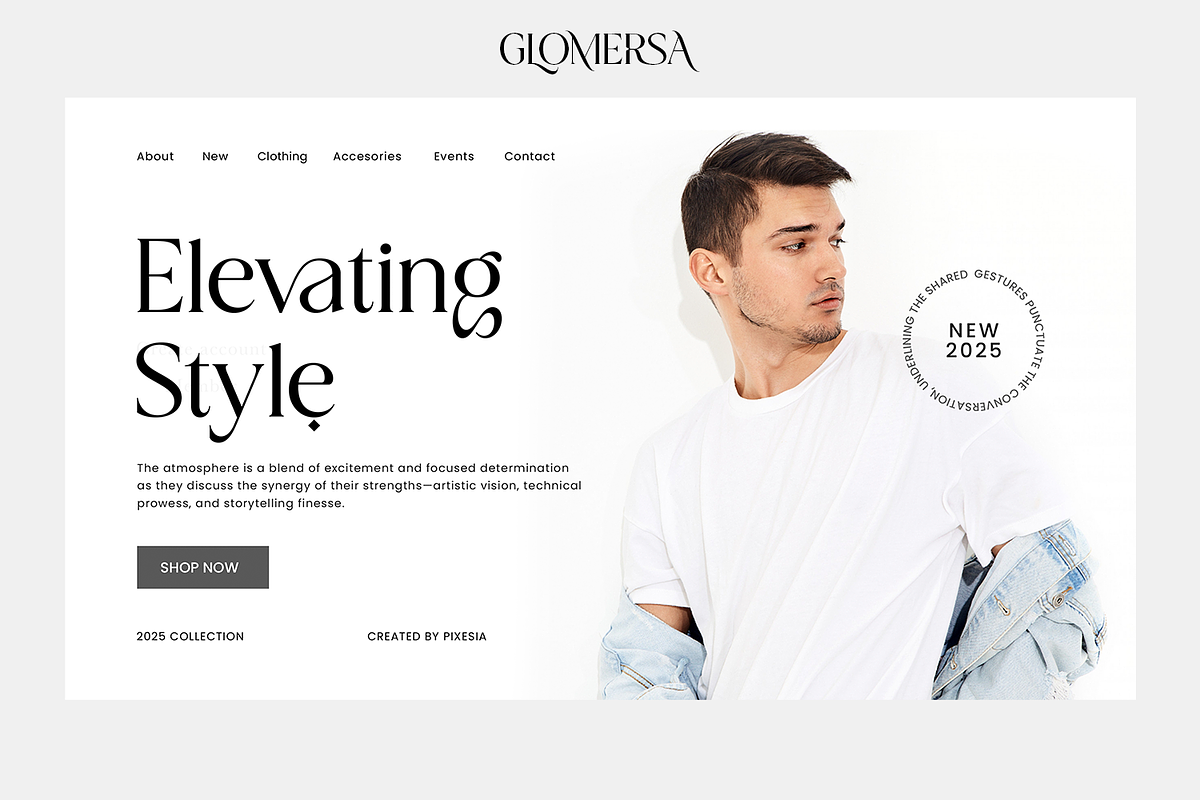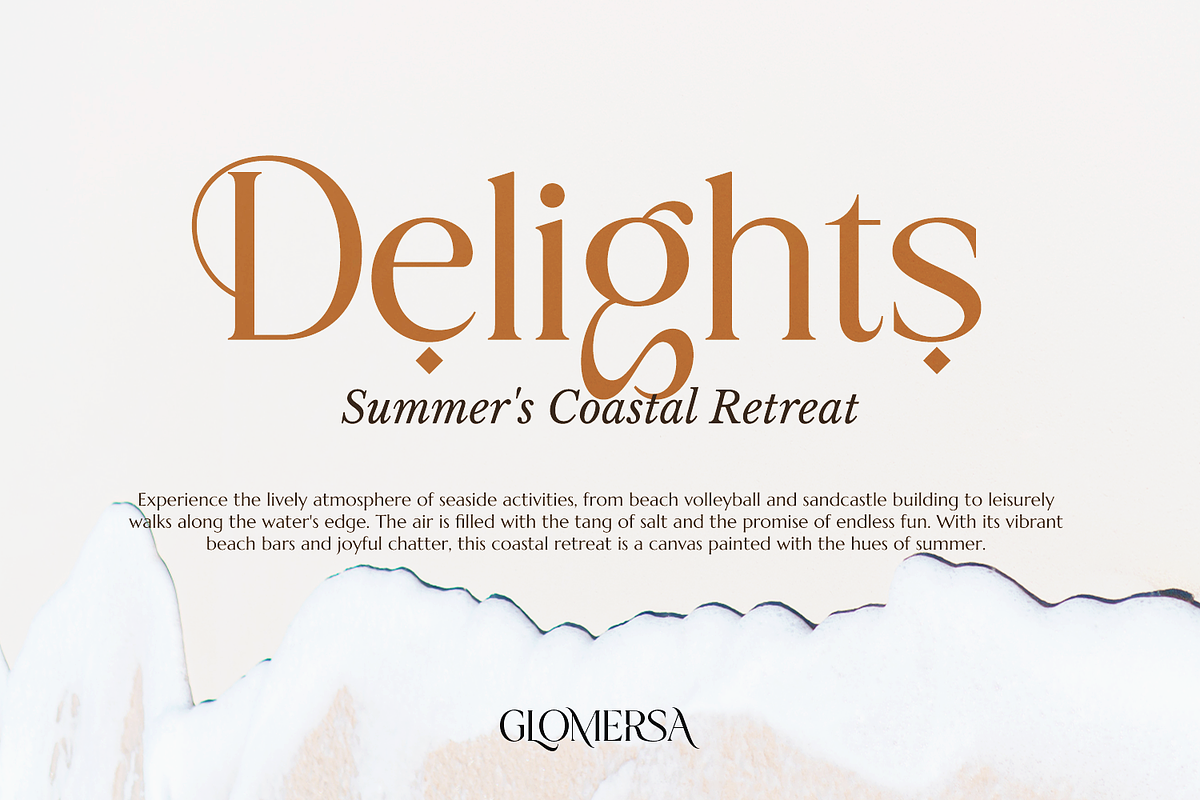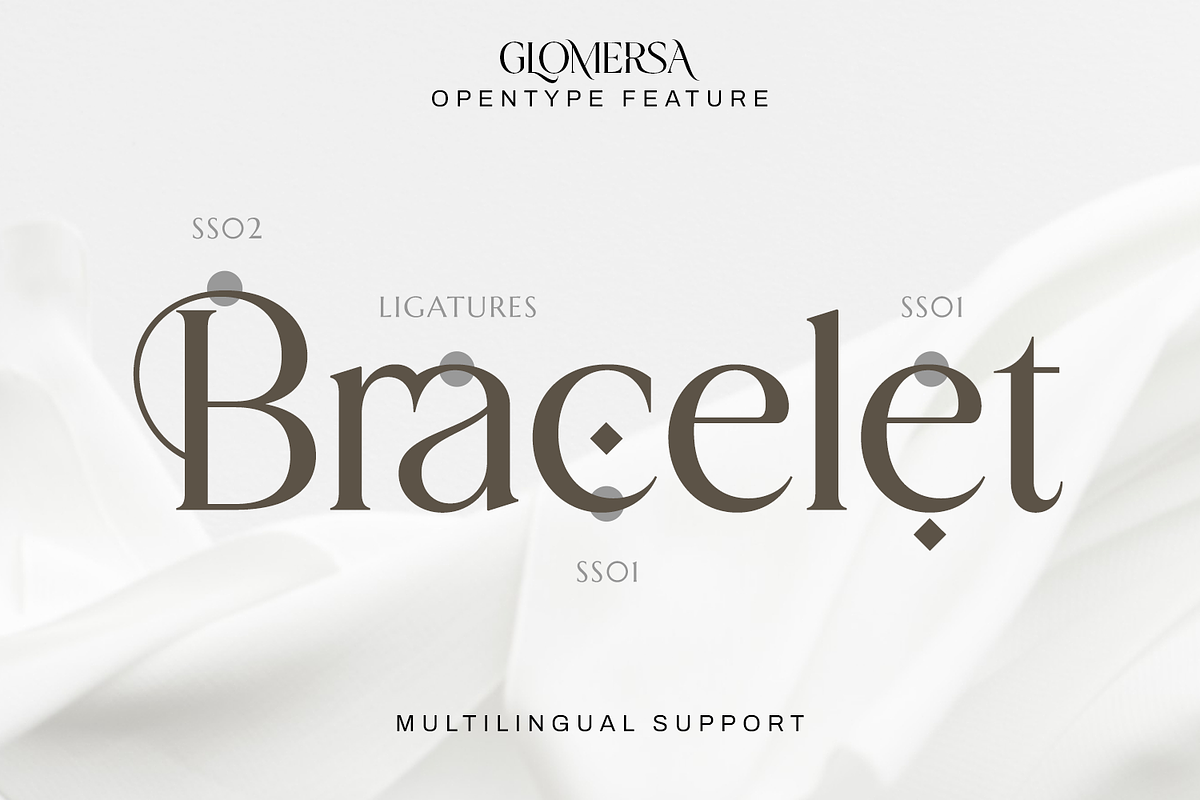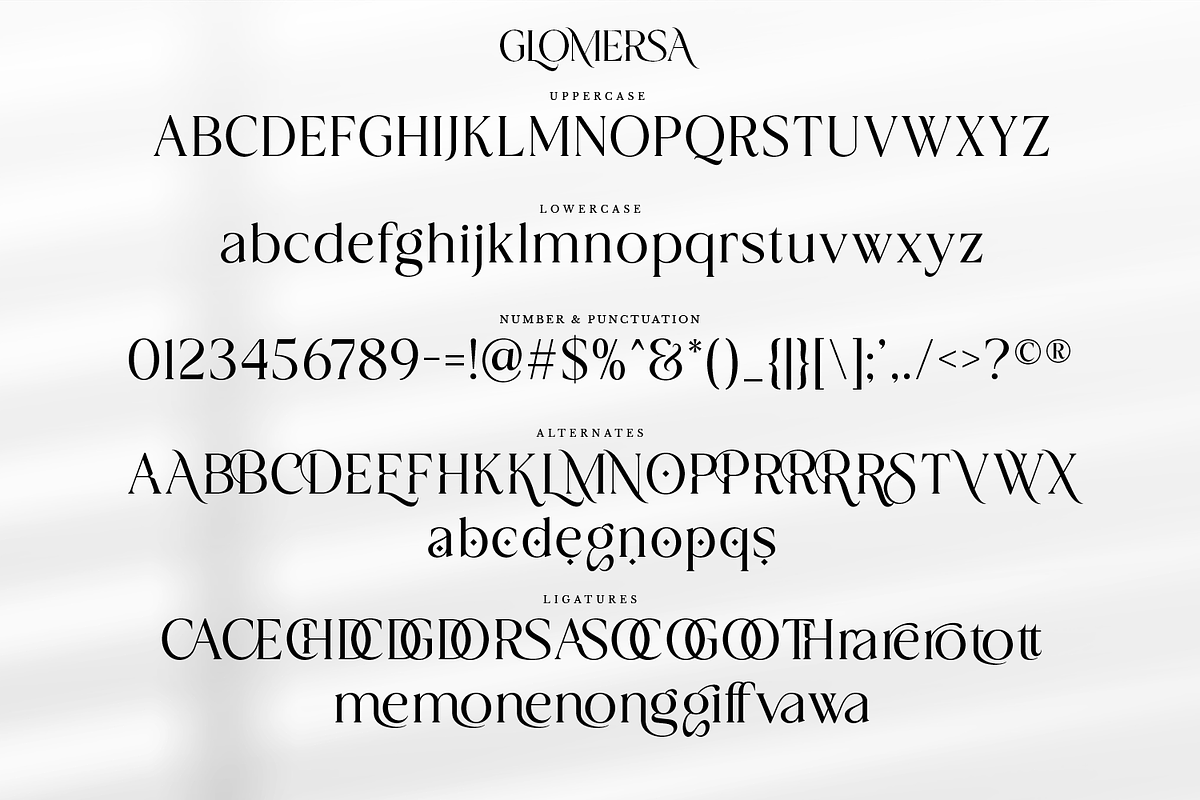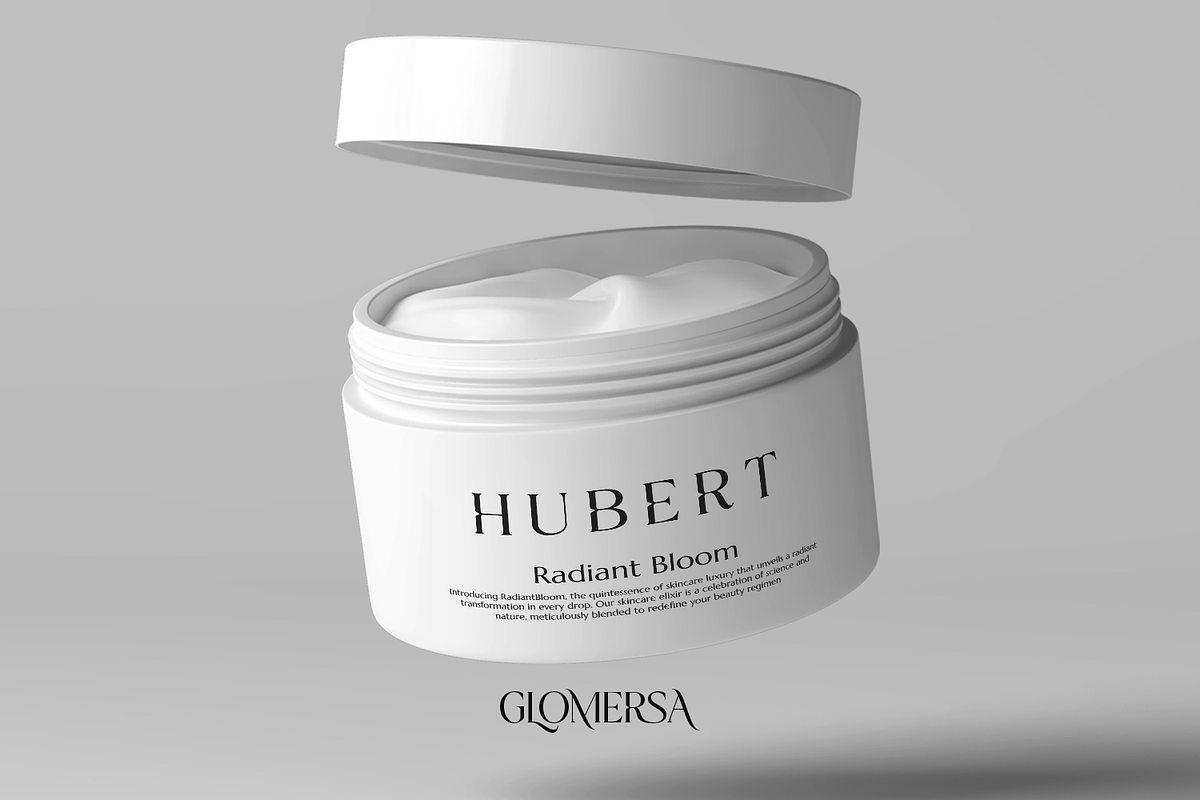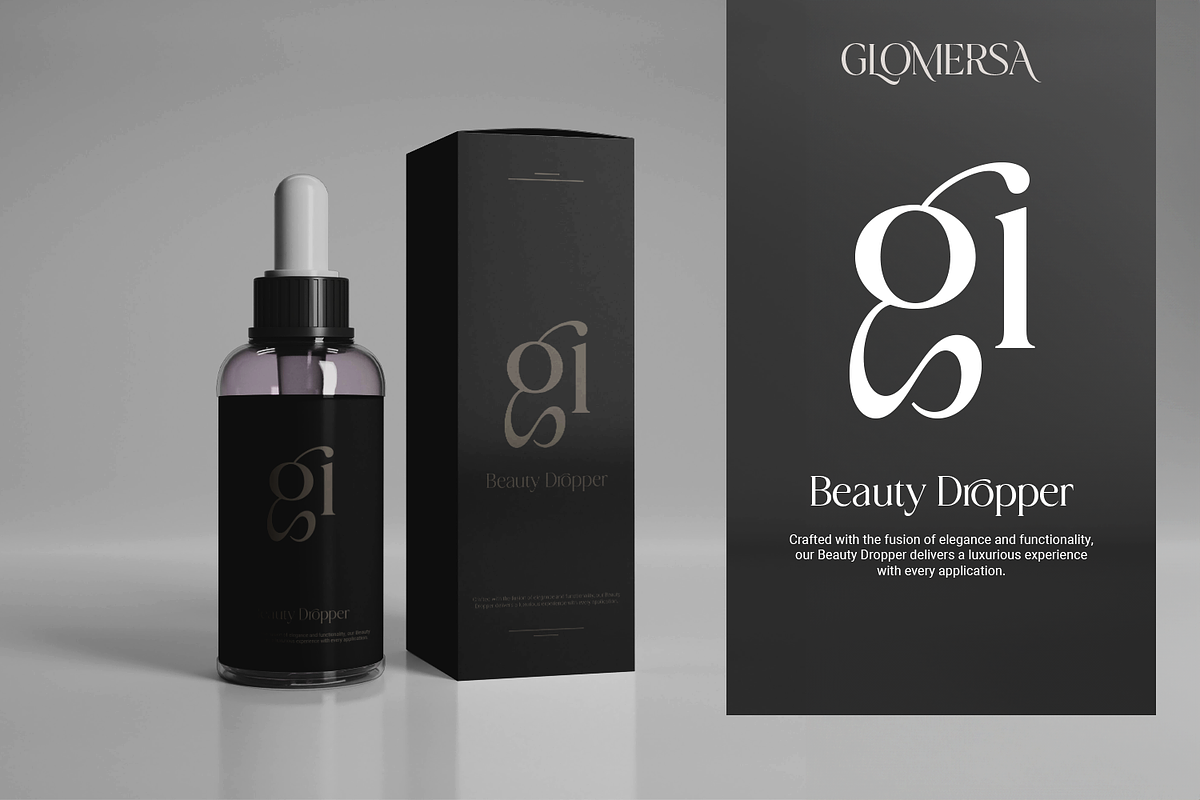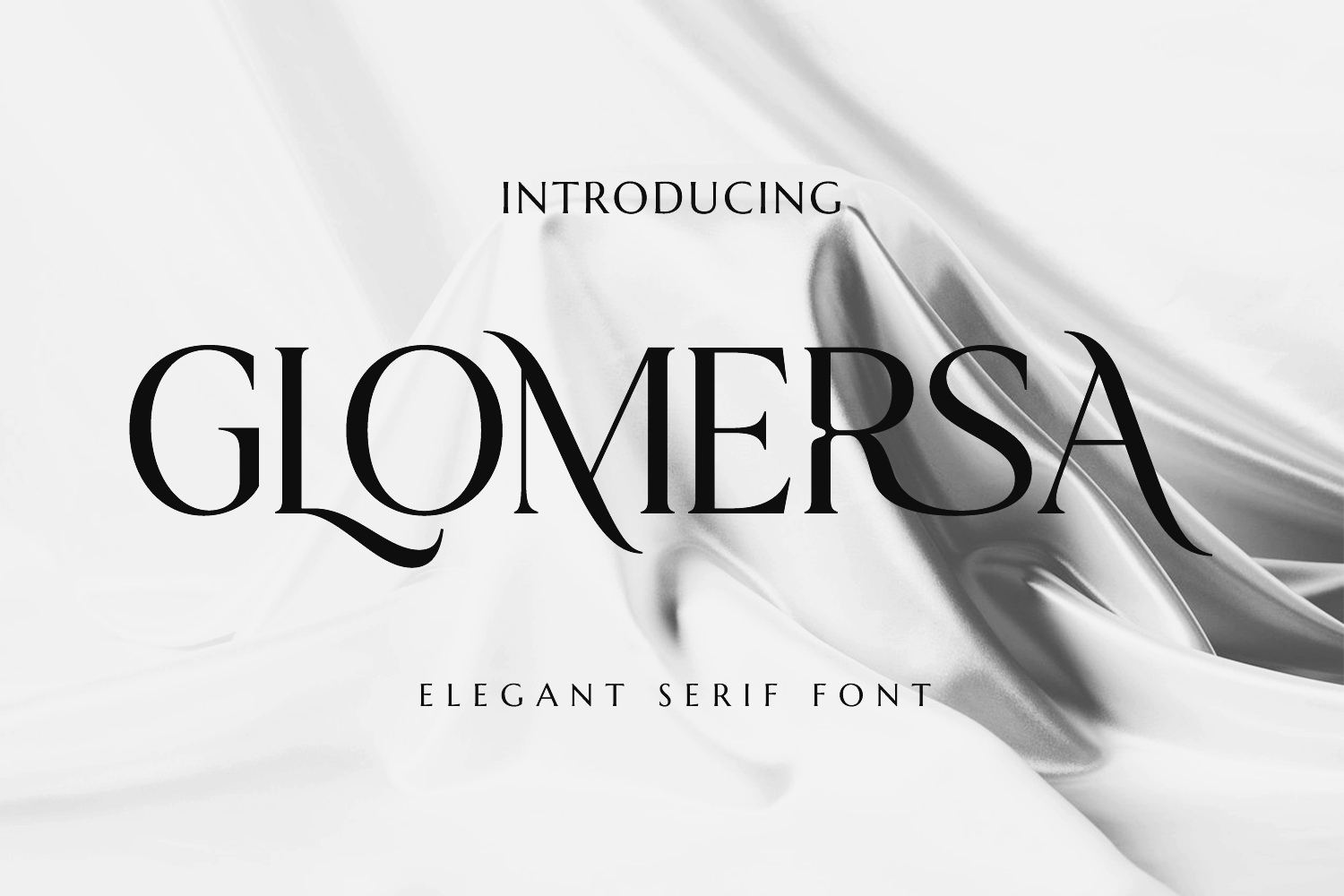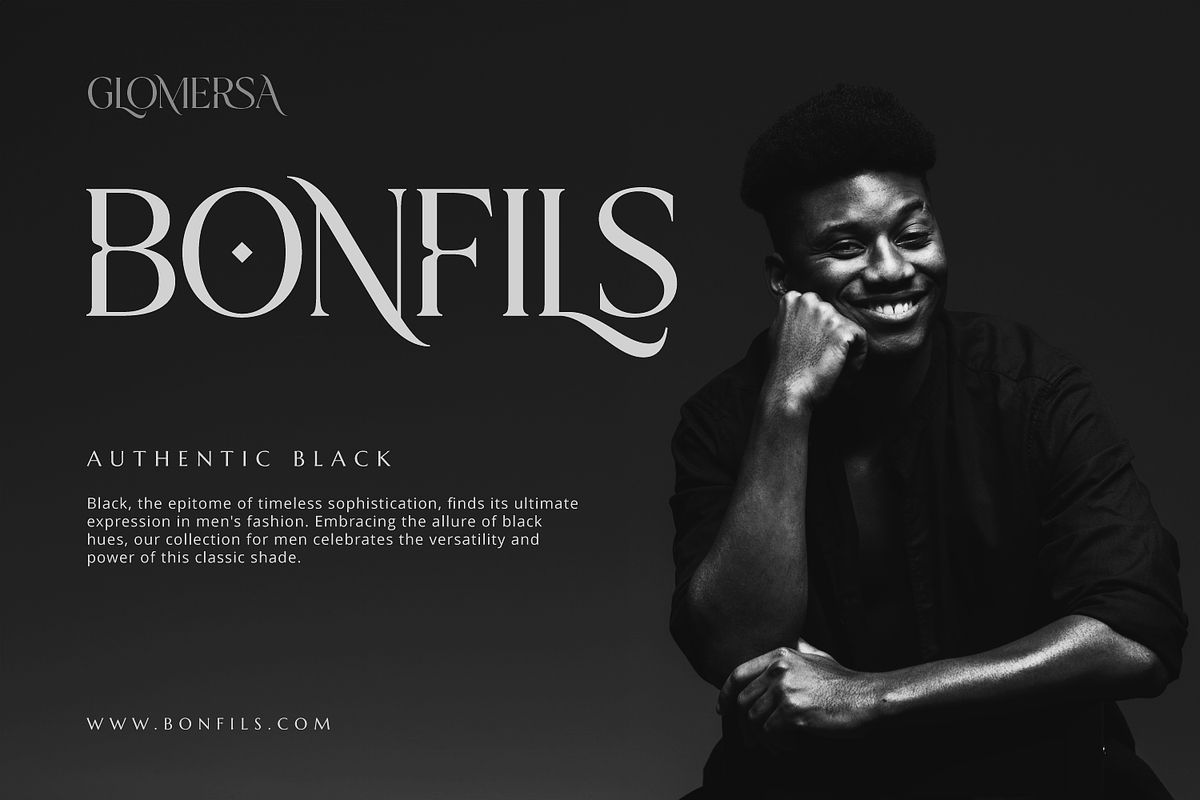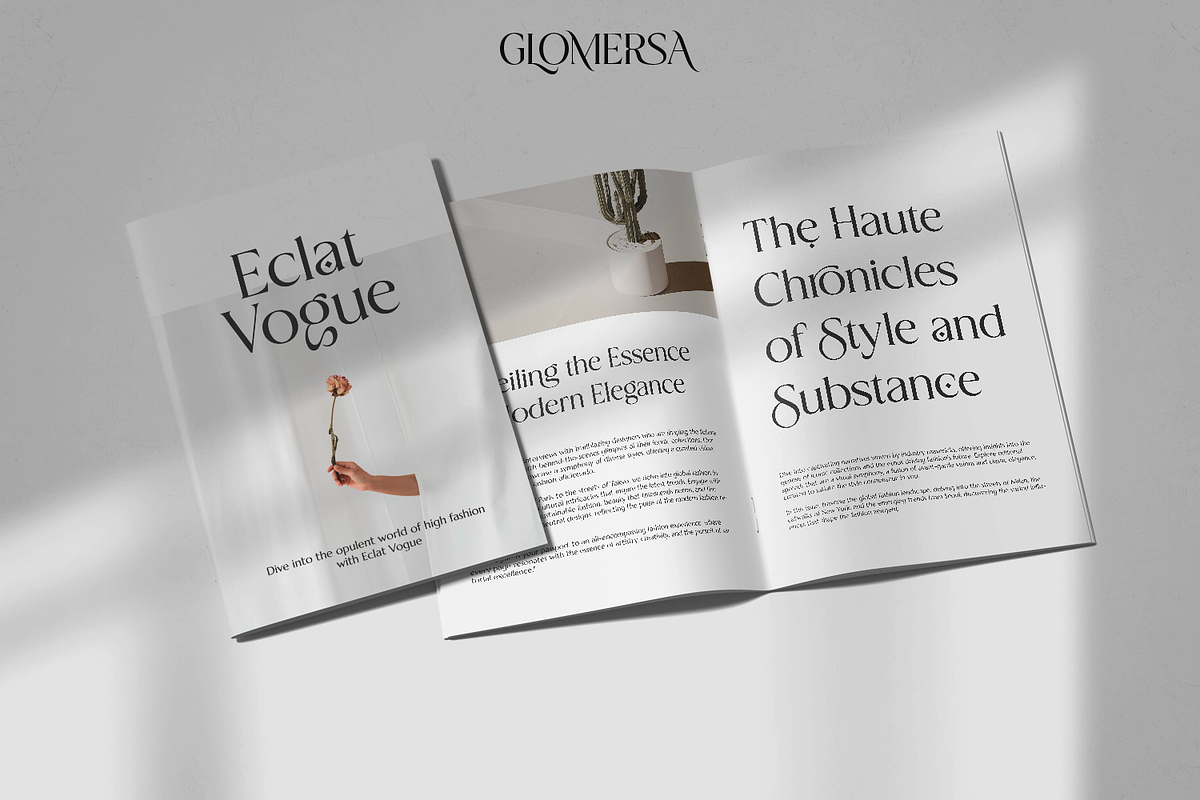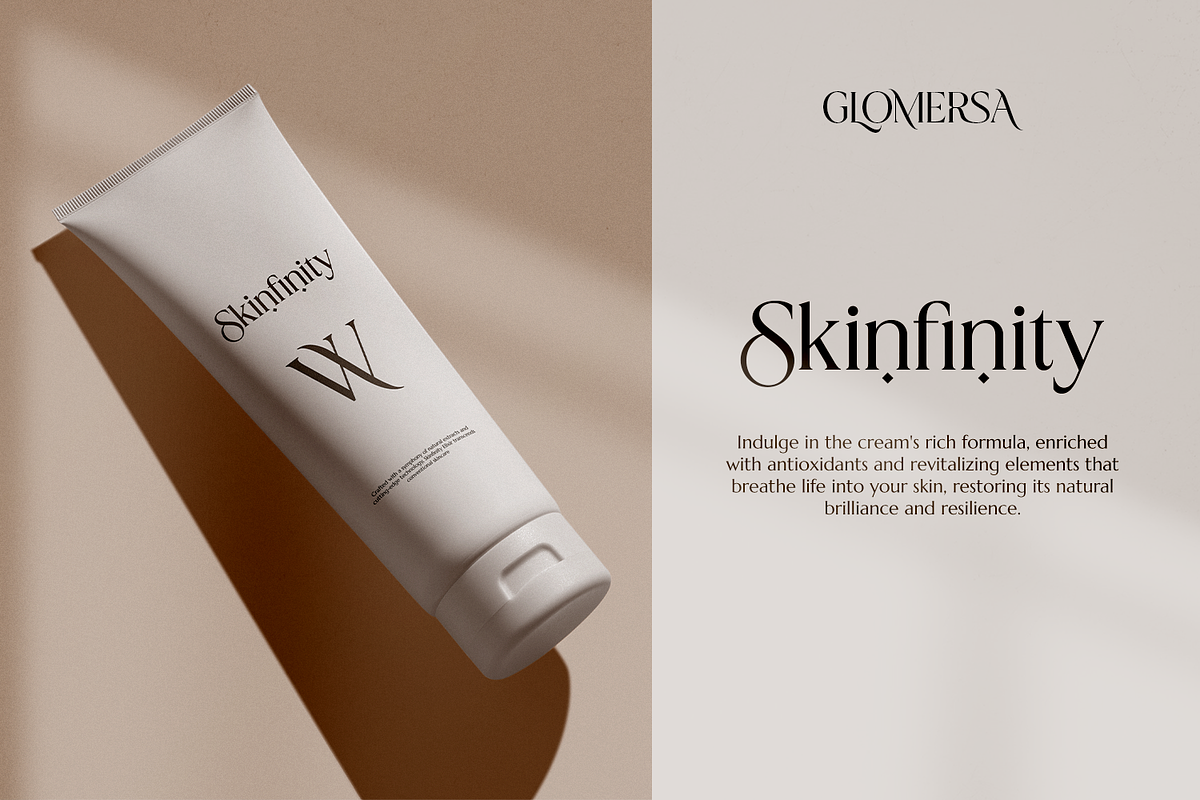
Glomersa - Modern Luxury Serif Font
Introducing Glomersa - Modern Luxury Serif Font
Glomersa is a modern aesthetic serif font inspired with an elegant and bold design. It brings more chances and possibilities to craft a design with an elegant, strong, and sophisticated vibe.
Glomersa suits perfectly in the use of any fashion brand. Glomersa is better used for fashion product packaging, clothing labels, any masculine related brand, or any projects seeking for a touch of elegant, luxury, classic, bold and any sophisticated vibe.